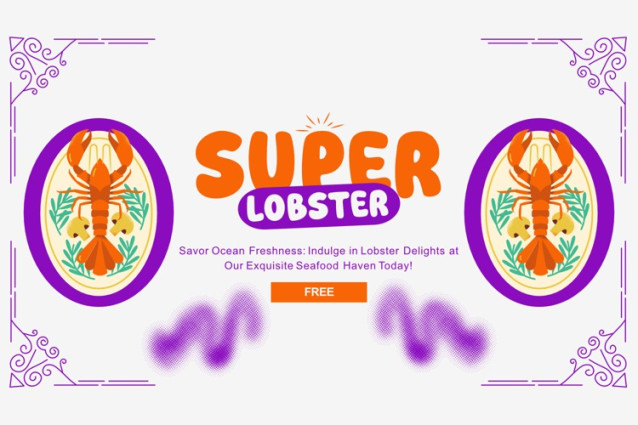
Super Lobster Font
Super Lobster Font is a chunky, comic, and cartoon display font. With its neat and joyful personality, this font will enhance any project you wish to create!